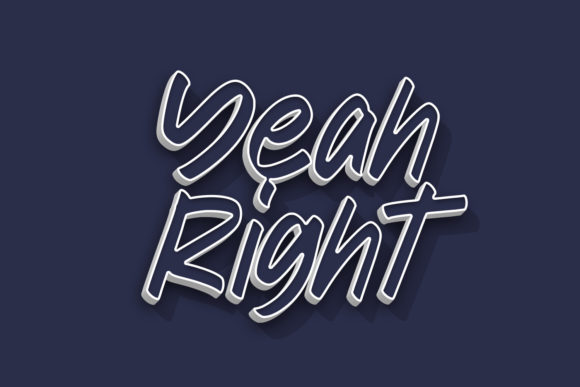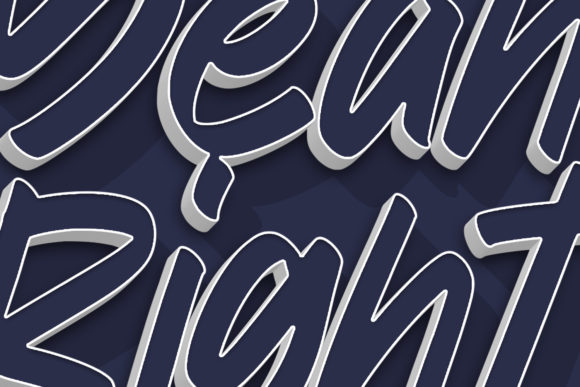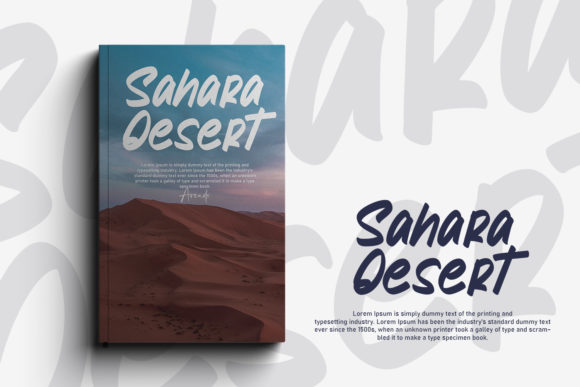
Introduction to Hipsterism Font
Hipsterism is a bold display font, carefully handcrafted to become a true favorite.
This font is the perfect fit for all of your logos, branding, social media, and crafty DIY projects .
Hipsterism Font offers exceptional quality and versatility, making it a valuable addition to your design toolkit. Whether you’re creating for personal projects or commercial use, Hipsterism Font delivers professional results.